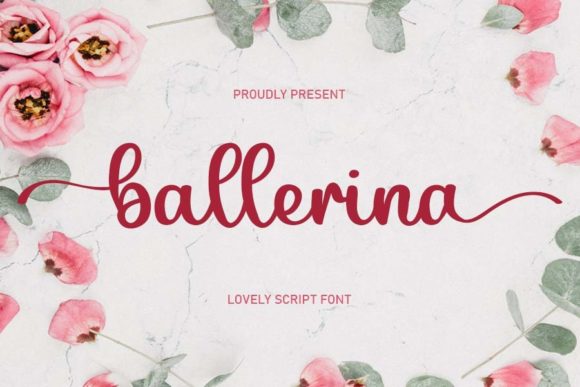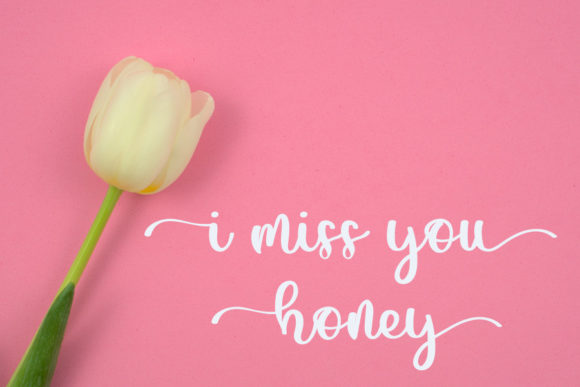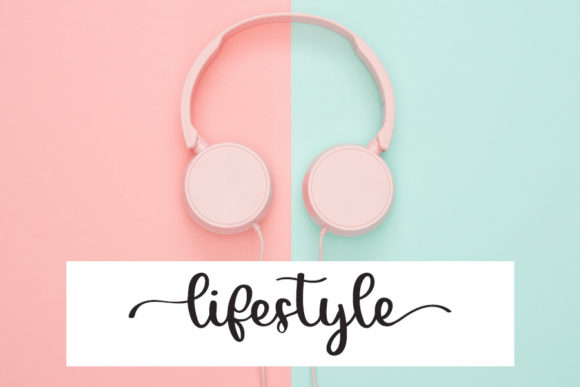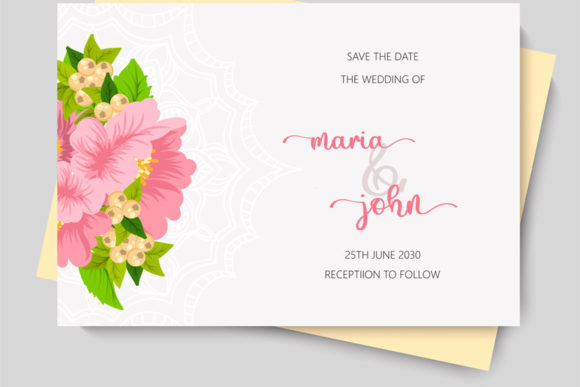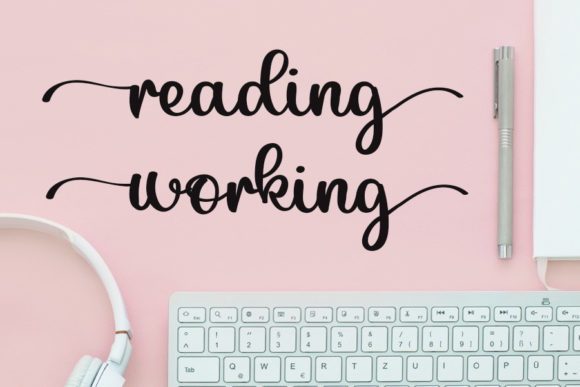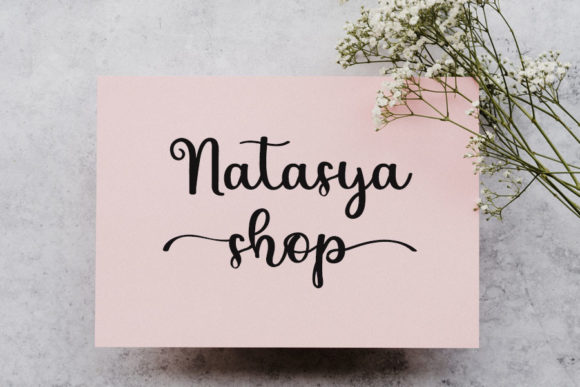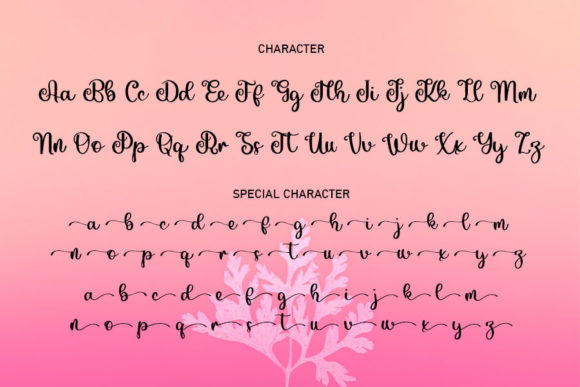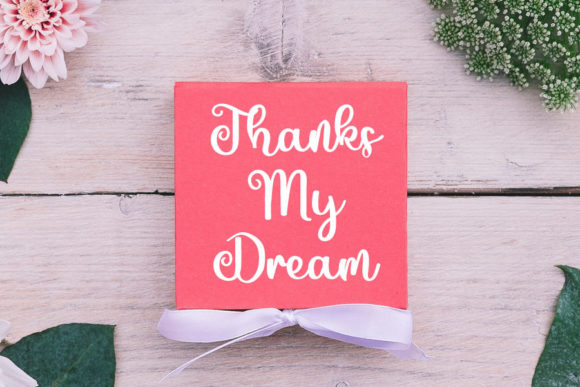
Ballerina Font
About Ballerina Font
Ballerina is a well-balanced, cheery and delicate script font. Whether you’re looking for fonts for Instagram or calligraphy scripts for DIY projects, this font will turn any creative idea into a true piece of art!